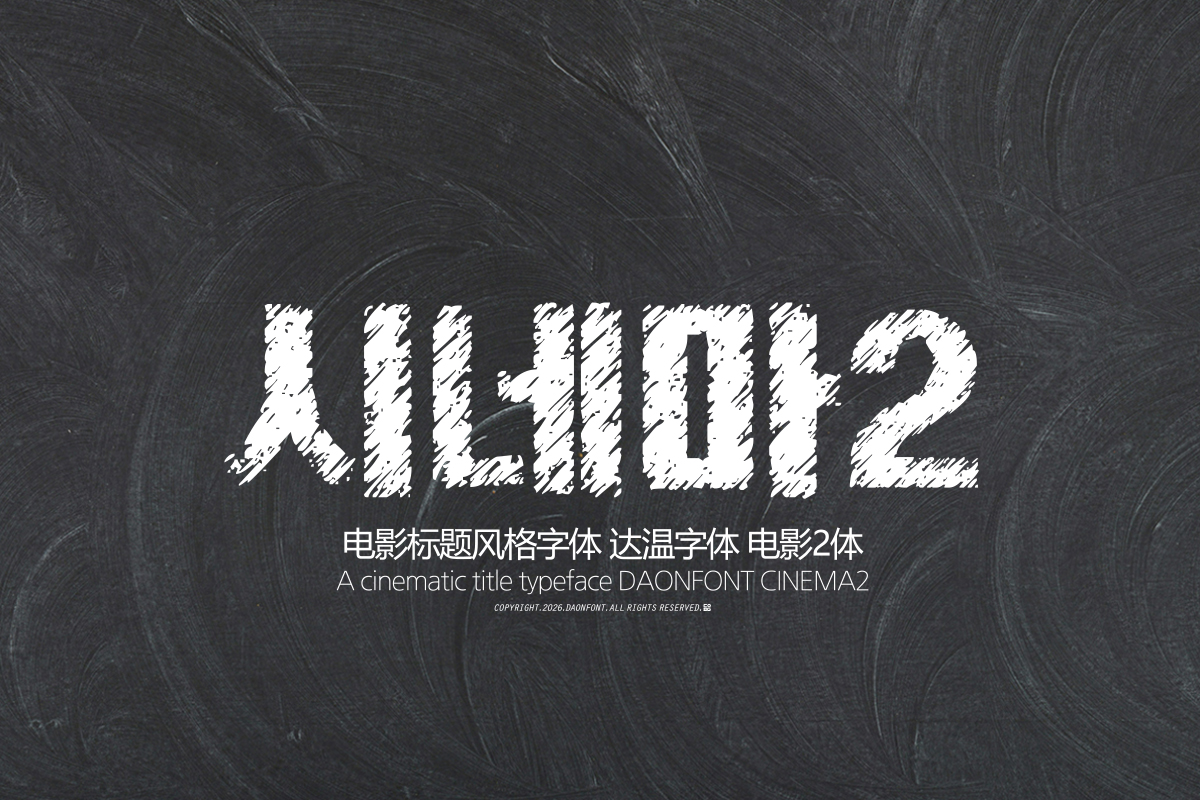
DAON CINEMA2
'CINEMA2' is a Korean typeface designed for displays, created based on the intense visual atmosphere found in movie posters and screen titles. With a concept of rough sketch textures, it can evoke an emotional title atmosphere even amidst a strong impression. Designed to express impressive typography reminiscent of a scene from a movie, it conveys a sense of depth and visual impact.